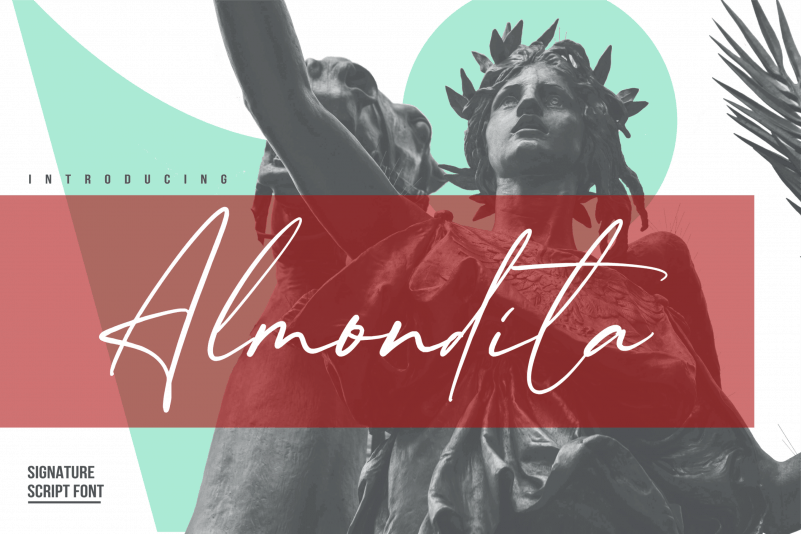
Almondita Signature Script Font
Proudly Present, Almondita Signature Script Font. It’s a trendy script font. and also very suitable for product packaging, branding projects, megazine, social media, or just used to express words over the background.